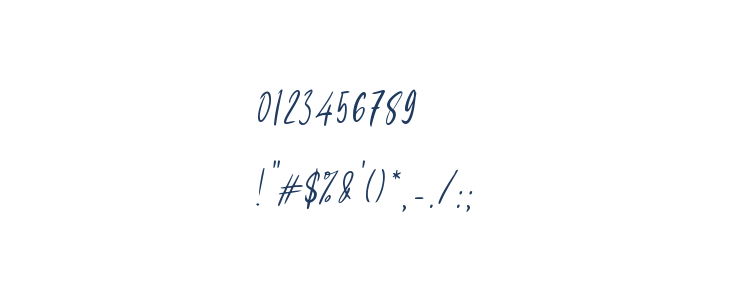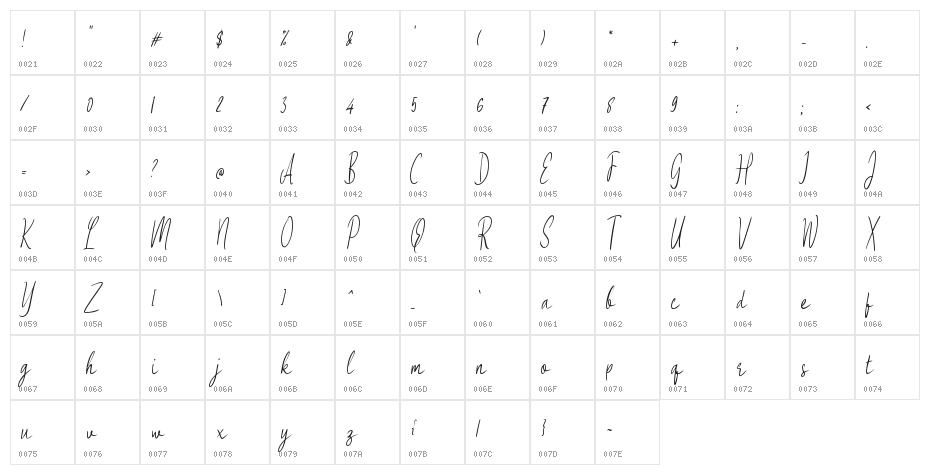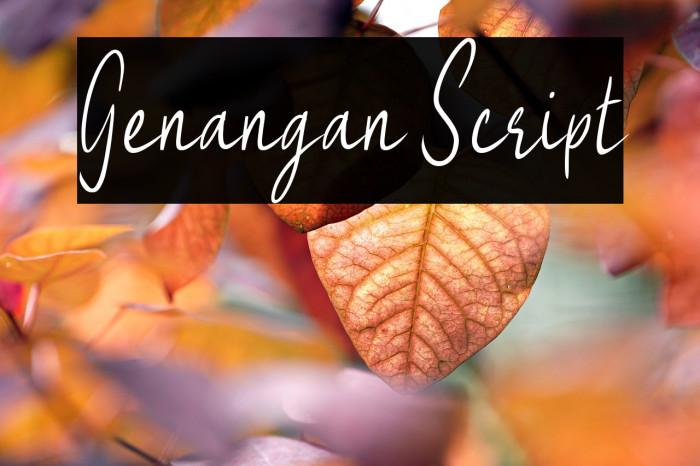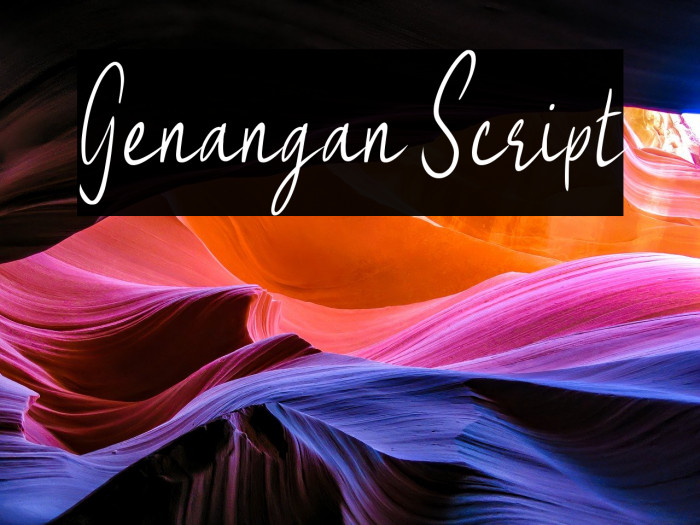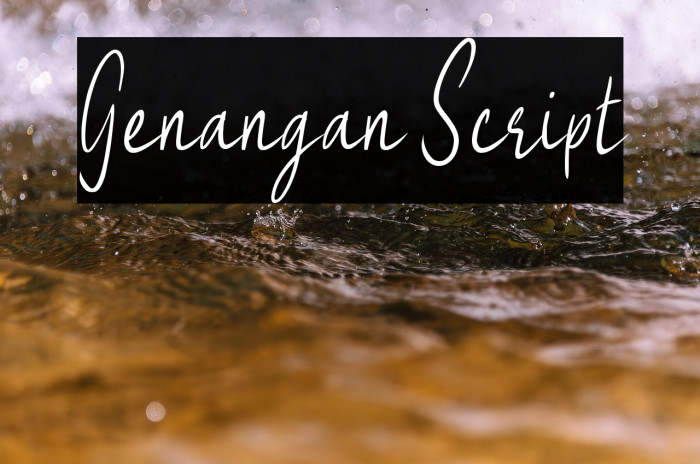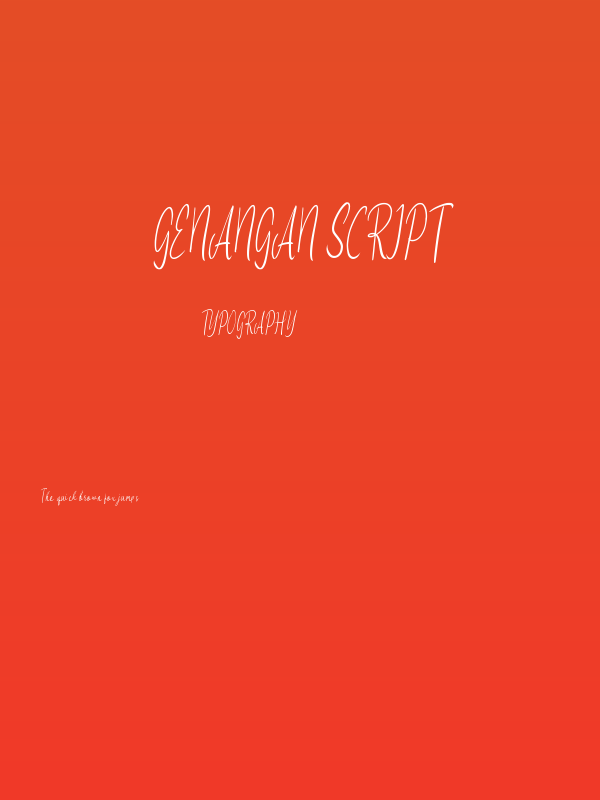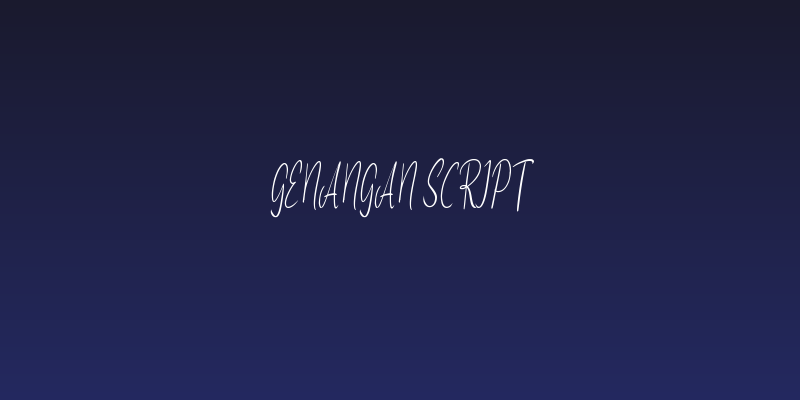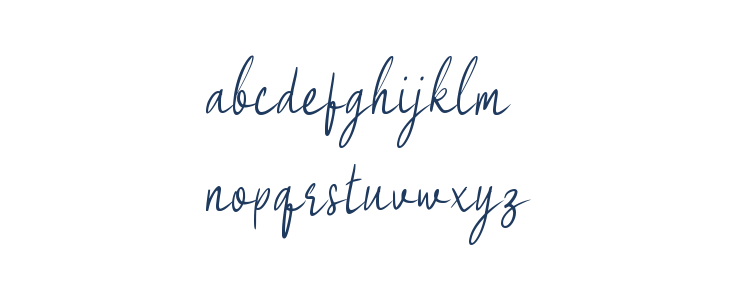
Genangan Script Font
Genangan Script Description
This font features an elegant and flowing script style, characterized by its elongated and slightly slanted letterforms. The uppercase letters are tall and narrow, with a graceful, sweeping quality that adds a sense of movement and sophistication. The lowercase letters are more compact, maintaining a consistent flow with gentle curves and loops. The numerals are designed to match the overall style, with a similar height and slenderness. Special characters are integrated seamlessly, ensuring versatility in various design contexts. The font's overall appearance is both stylish and legible, making it suitable for a range of creative applications.